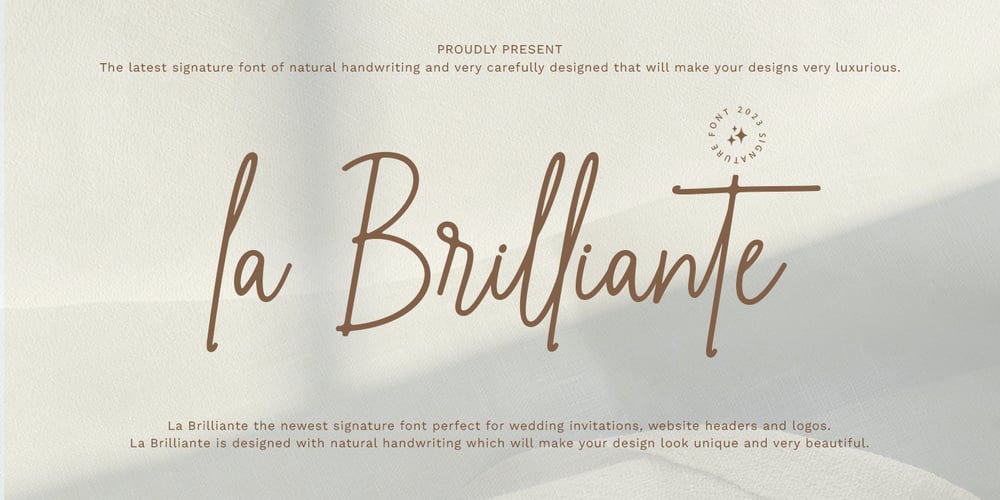
La Brilliante
La Brilliante font
La Brilliante Font Family was designed by Muhammad Fajar and published by Lucky Type. La Brilliante contains 1 styles and family package options. La Brilliante is the newest signature font perfect for wedding invitations, website headers, logos and more.La Brilliante is designed with natural handwriting which will make your design look unique and very beautiful.La Brilliante has front and back swashes in lowercase letters and has more than 50 ligatures that will beautify your writing.Thank you very much for viewing.